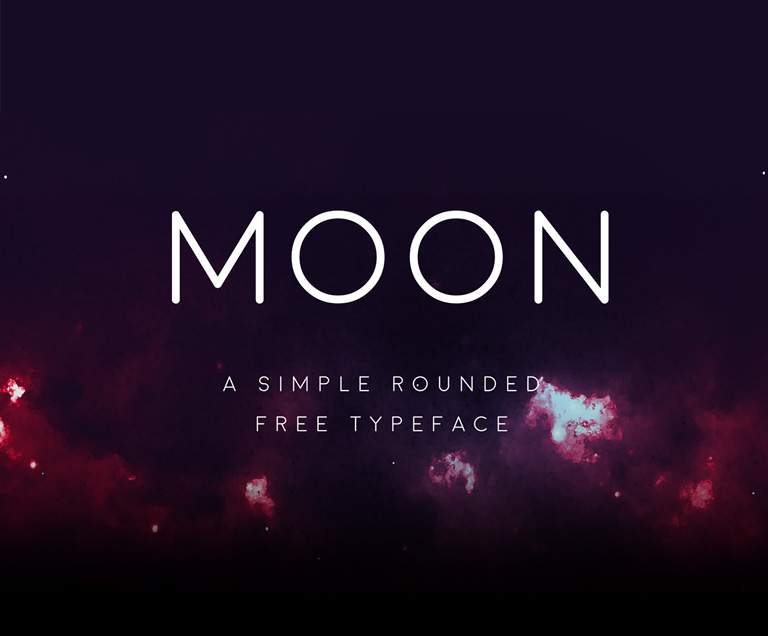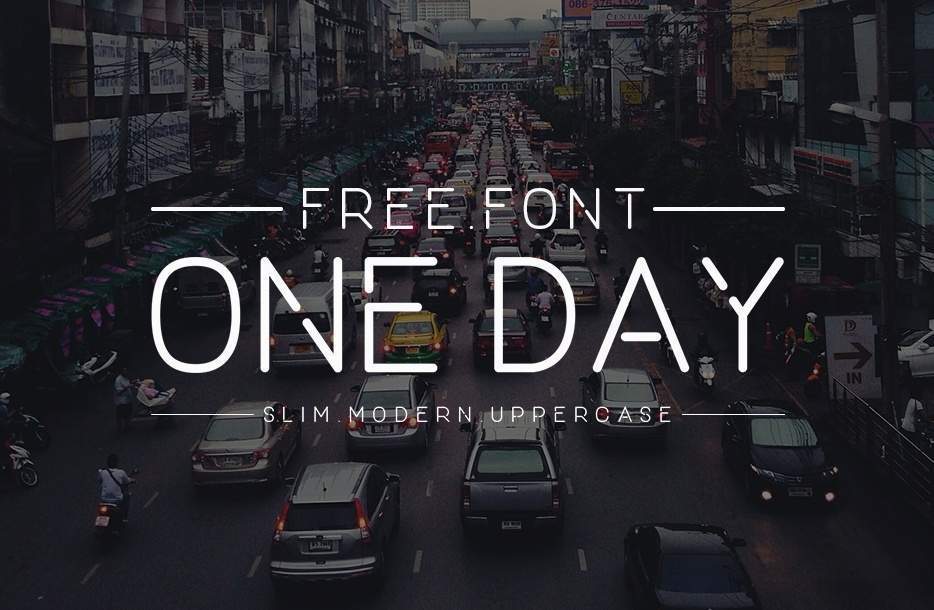
50 Free Fonts That Are Stylish, Elegant, and Ready to Transform Your Designs
Are you searching for free fonts that bring style, elegance, and professionalism to your projects? Look no further! This handpicked collection of 50 free fonts is perfect for designers who want to create polished, eye-catching visuals without spending a dime.
Why Choose Elegant Fonts
Elegant fonts play a crucial role in elevating your design projects. Whether you’re crafting logos, invitations, social media graphics, posters, or websites, the right stylish fonts can make your work stand out and leave a lasting impression. These fonts are carefully selected to provide a balance of sophistication, readability, and visual appeal.
Features of This Stylish Font Collection
This collection includes a mix of:
Modern serif and sans-serif elegant fonts
Handwritten and calligraphy styles for a personal touch
Bold display and decorative fonts for headlines
Fonts suitable for branding, packaging, and print projects
1. Accent Font
Accent is a minimalist and stylish font created by Nelson Balaban, featuring clean, crisp lines that bring a modern edge to any design. Its bold simplicity and on-trend aesthetic allow it to naturally take center stage in your layout. Accent is best suited for short titles, labels, and compact text, making it a go-to choice for modern branding and sleek visuals.
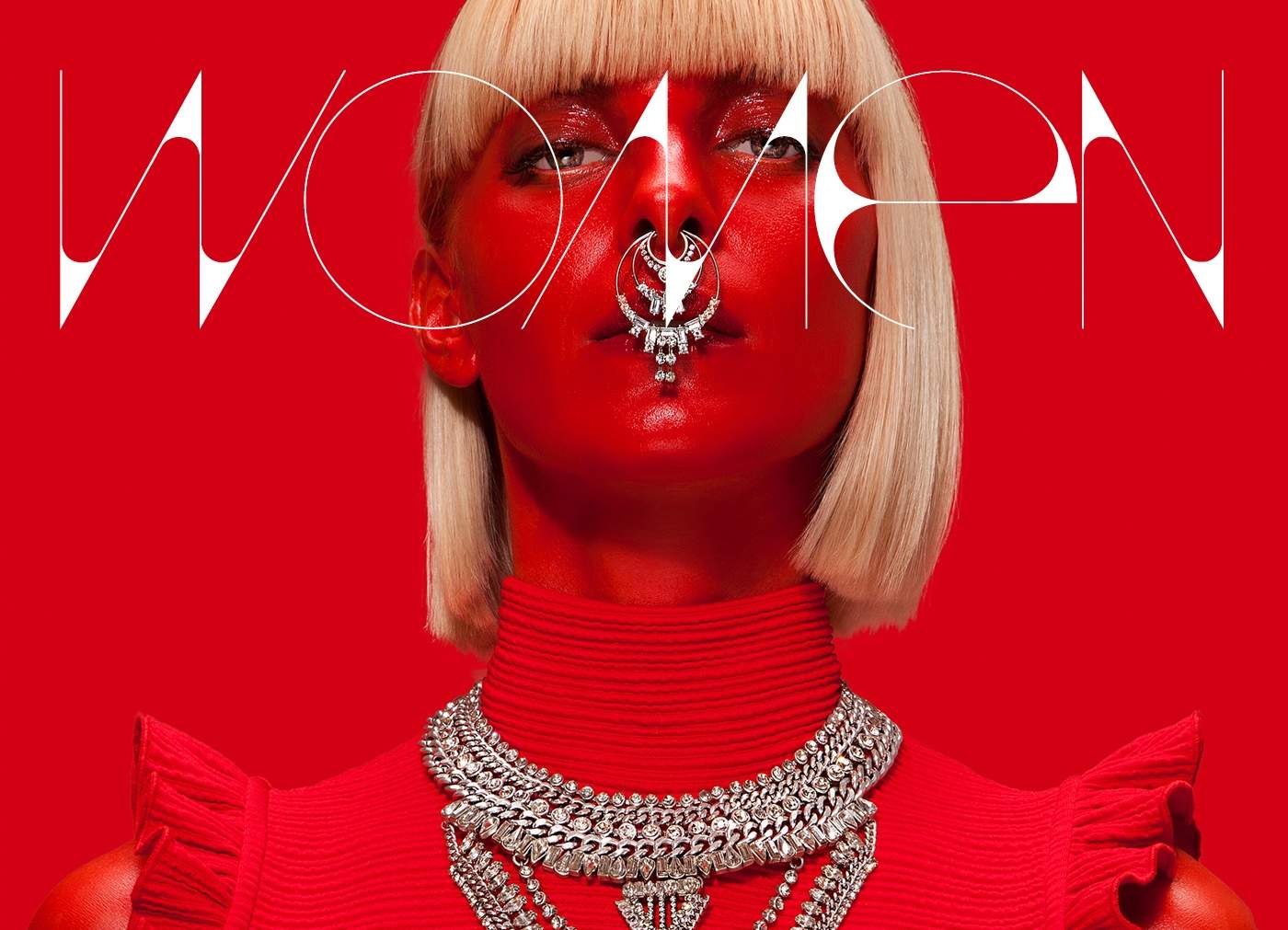
2. Halo Handletter Font
Halo Handletter is a handwritten font created by Mario Arturo. It’s both sophisticated and playful, striking a perfect balance between artistic flair and readability. The uppercase letters are inspired by brush strokes, making them easy to read, while the lowercase characters bring a charming, handwritten feel that will make you fall in love with script typography all over again.
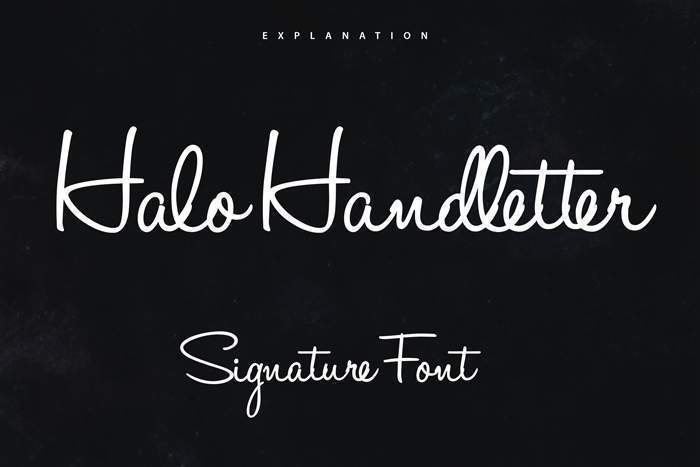
3. Coco Font
Coco is a bold and elegant font inspired by the legendary Coco Chanel, designed by Hendrick Rolandez. With its tall, attention-grabbing letterforms, Coco adds a sense of luxury and style to any design. It’s the perfect choice for headlines, covers, and any project that demands a fashion-forward presence.
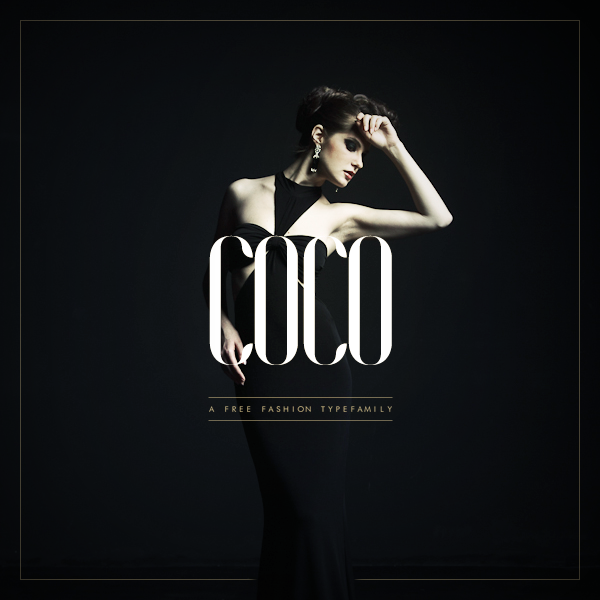
4. Castro Script Font
Castro is a hand-drawn calligraphy font created by Måns Grebäck, featuring beautifully crafted letterforms. Its elegant curves and graceful swashes in the uppercase letters add a touch of sophistication and charm, making Castro an inspiring choice for wedding invitations, romantic stationery, and luxury branding.
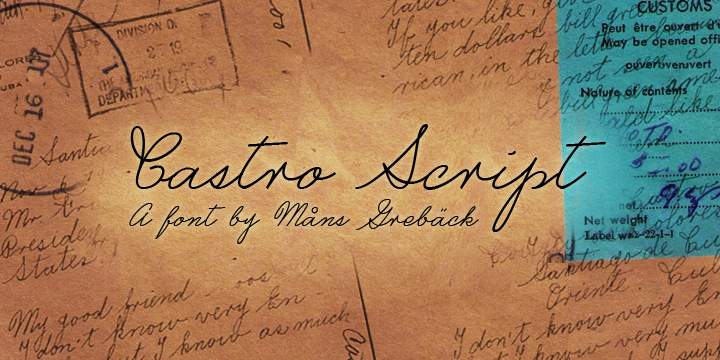
5. Vanity Font
Vanity is another chic typeface designed by Hendrick Rolandez, created specifically for fashion magazines and editorial design. What makes this font truly stand out is the way each tall letter is subtly connected to a dot, adding a signature, stylish touch. With its clean lines and refined structure, Vanity remains highly readable—even in visually busy layouts—making it a perfect choice for modern, high-end branding.
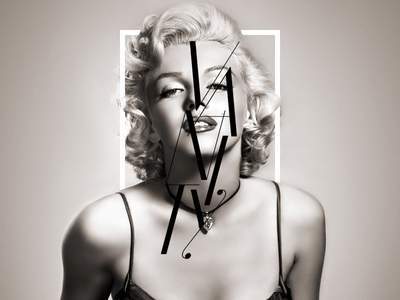
6. Parisienne Font
Parisienne is a fashion-inspired script font that beautifully blends vintage charm with classic elegance. Designed by Astigmatic, this flowing, cursive typeface features a soft, slightly bouncy style with intentional irregularities, giving it a unique personality that adds character to any design. Parisienne is perfect for feminine branding, editorial layouts, or stylish invitations.
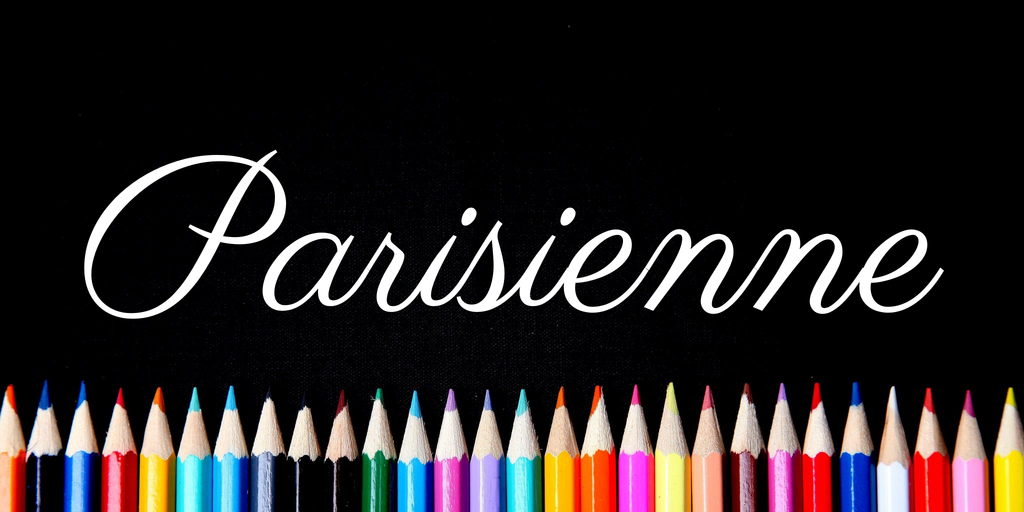
7. Balqis Font
Balqis is an elegant and stylish calligraphy font, created through a collaboration between Artimasa Studio and Free Design Resources. While it features a script-style flow, the letters are upright, making it an excellent choice for headlines and titles. Balqis carries a romantic atmosphere paired with a touch of refined sophistication, perfect for wedding designs, beauty branding, or any project that needs a graceful and feminine look.
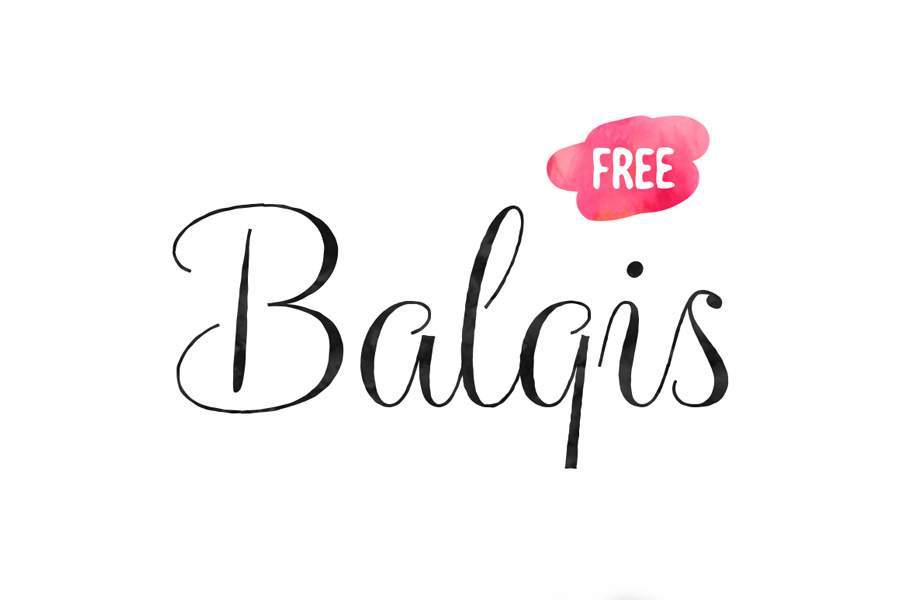
8. Nichainley Font
Nichainley stands out with its thin lines and crisp letterforms, giving it a look that’s both refined and distinctive. The gently curved characters have just a slight slant, adding a subtle rustic and vintage charm to the font. Perfect for designs that call for a classic, yet approachable aesthetic.
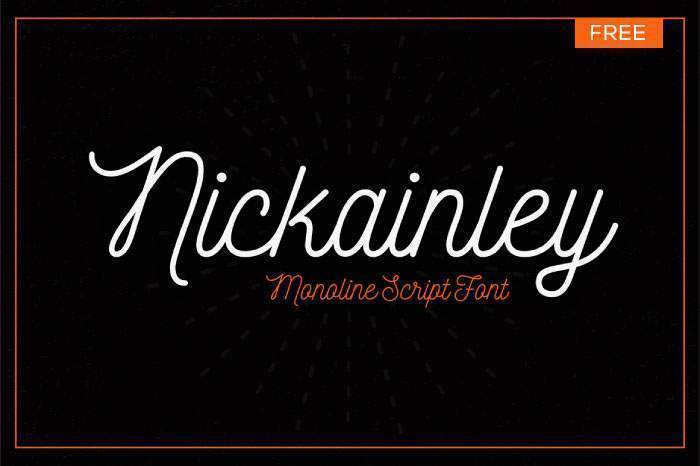
49. Brayden Font
Brayden is an elegant retro-style font featuring beautifully crafted initial and terminal letters. According to designer Adam Fetoni, this typeface is perfect for quotes, logos, and headlines, adding a touch of classic sophistication to any design.
50. Shintia Font
The final font on the list also comes from Seniors Studio. Shintia is a stylish typeface with a classic and vintage flair. It combines elegance with crisp clarity, making it perfect for logos, posters, and Instagram graphics.